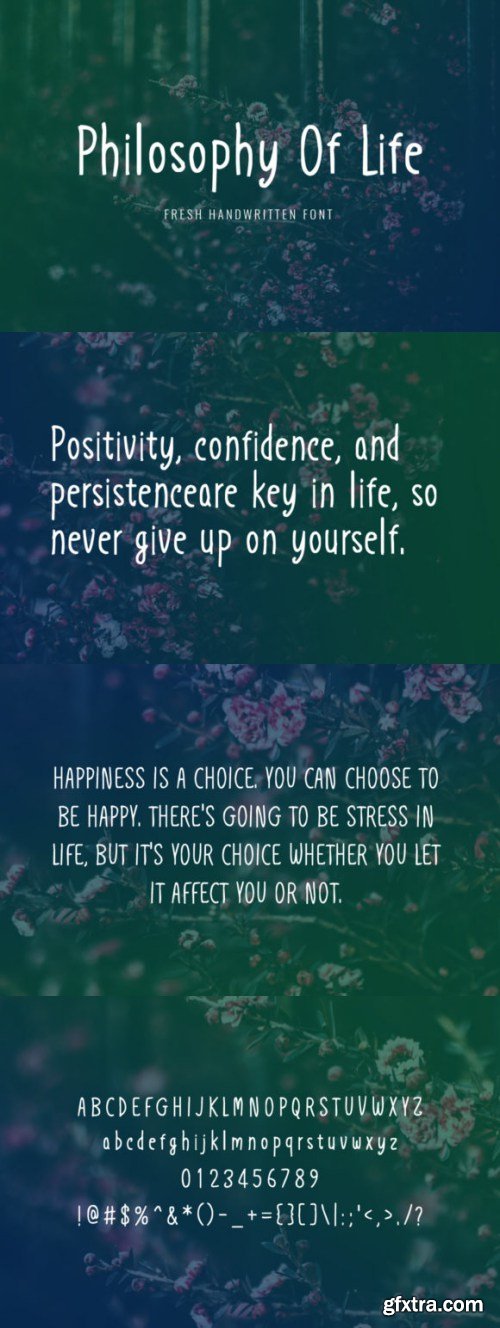
Philosophy of Life Font
Philosophy of Life is a fresh and bold handwritten font with a sophisticated edge. It will turn any creative project into an eye catcher!